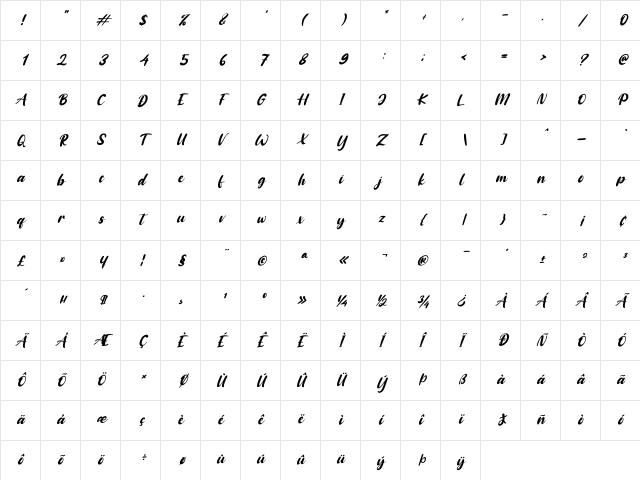
Baby Coffee Italic Regular Free Font
Baby Coffee Italic Regular
Foundry: Kong Font
Designer: Typeface￿(Kong Font).2020
Baby Coffee Italic Family
Design Context for Baby Coffee Italic
Baby Coffee Italic is a composed and adaptable typeface that performs quietly and consistently across a wide range of design contexts. The slanted form adds forward momentum and visual energy.